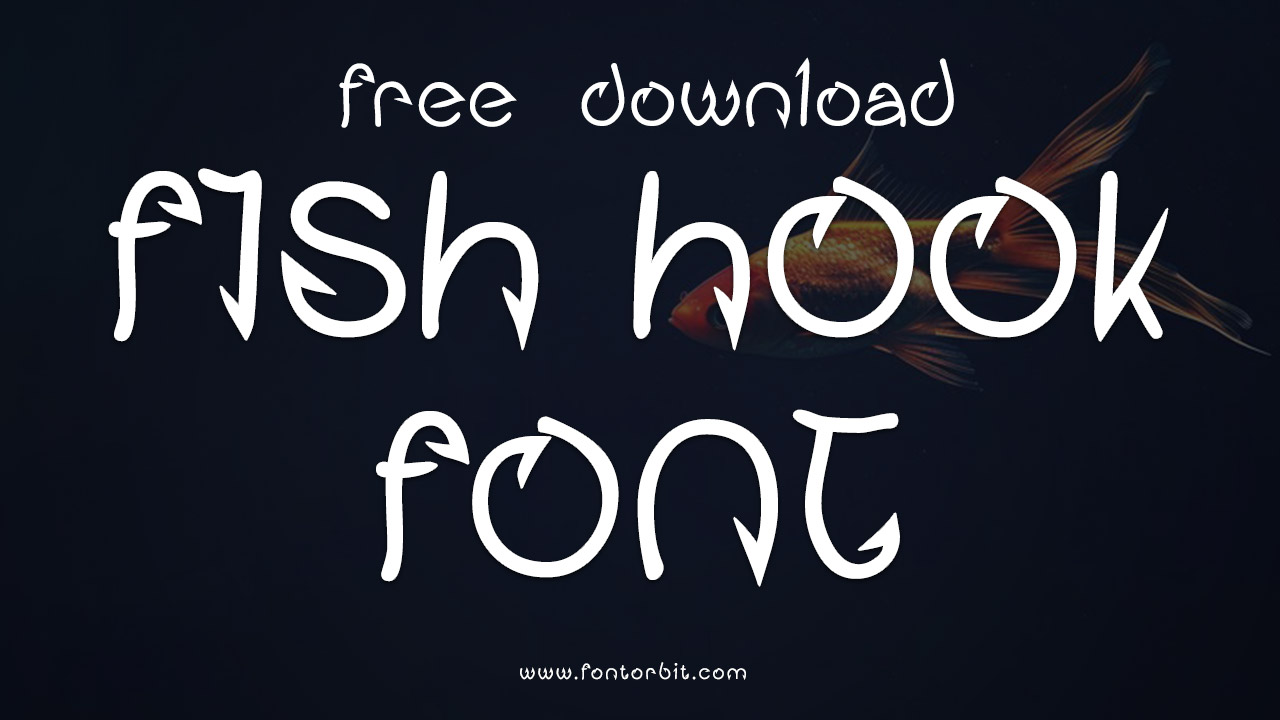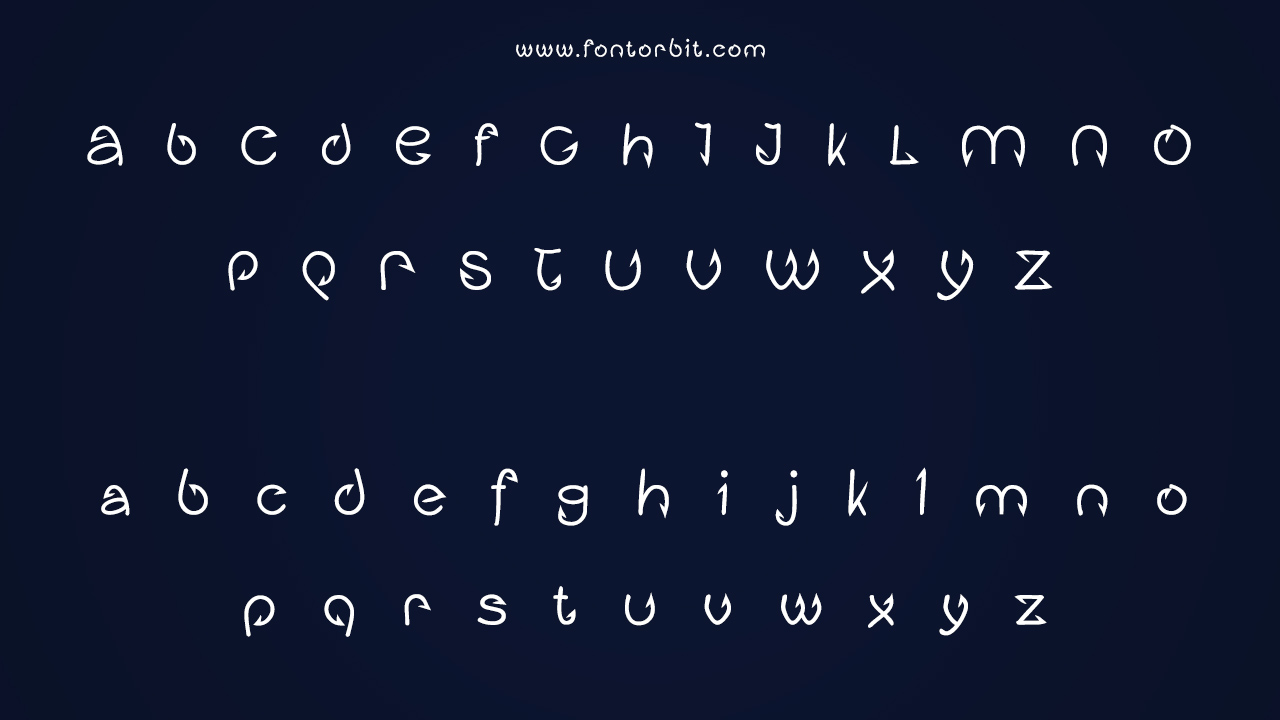
Robert Schenk designed Fish Hook Font, first published in Ingrimayne Type. This unique, decorative typeface offers a distinctive look created from fishhooks and barbs. With its modern yet vintage appearance, Fish Hook Font adds a creative edge to your design projects.
The Fish Hook Font is a distinctive display typeface available in OTF and TTF formats and is free for personal use. This font features a letterbat design made from fishhooks and barbs, giving it a unique, vintage style. The character map includes a variety of glyphs, making it suitable for creative and thematic uses.
The Fish Hook Font Found In Use
- Titles
- Product Packaging
- Event Signage
- Creative Projects
Fish Hook Font is commonly used in various design contexts for its creative and unique appearance. It excels in branding and social media graphics, where its distinctive letter bat design stands out. The font enhances product packaging with its vintage charm and is effective in event signage and creative projects.
Fish Hook Font, designed by Robert Schenk, offers a creative and vintage style ideal for diverse design projects.
2.What Is The Fish Hook Font?
It is a decorative typeface designed with fishhook and barb elements.
3.What Are The Best Practices For Pairing Fish Hook Font With Other Fonts?
Pair with clean, sans-serif fonts like Helvetica for contrast. Use Fish Hook Font sparingly for emphasis, and ensure it complements, not overwhelms, the other typefaces.
4.How To Choose The Right Size For Fish Hook Font In A Design?
Choose a size that maintains readability and visual impact. Use Fish Hook Font for headlines or accents, and adjust size based on the design’s hierarchy and space constraints.
5.How To Add Special Effects To Fish Hook Font In A Design?
Apply effects like drop shadows, embossing, or gradients to enhance its unique look. Ensure effects enhance readability and maintain the font’s distinctive features without overwhelming the design.